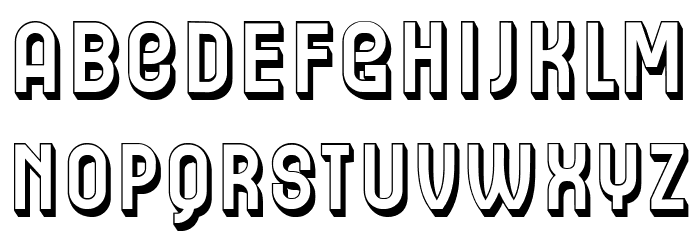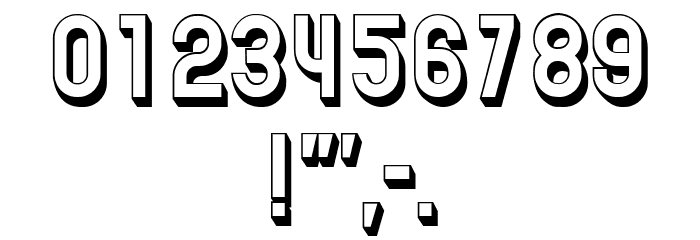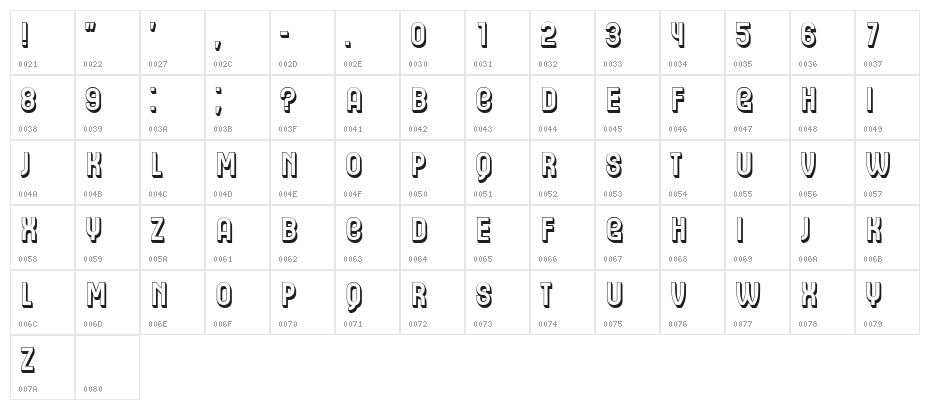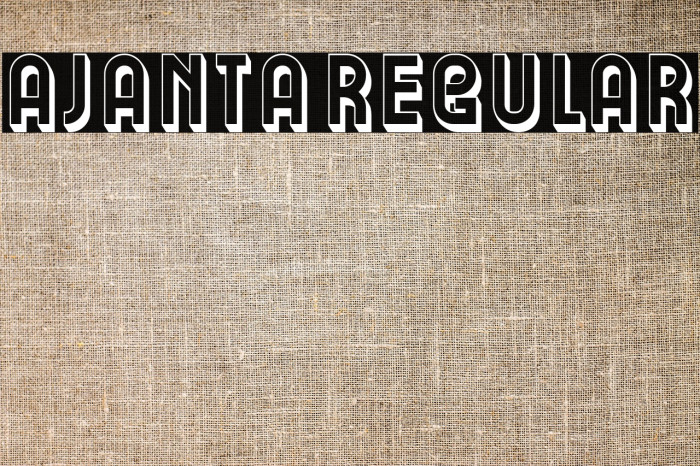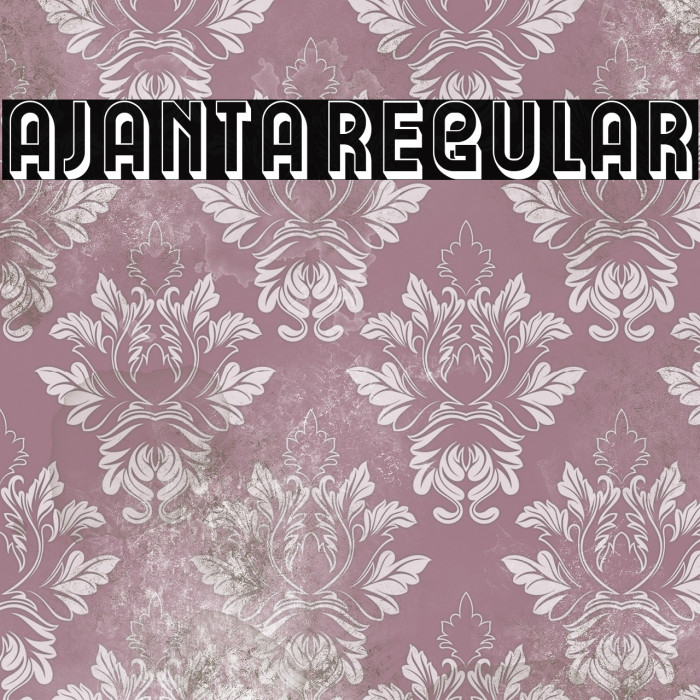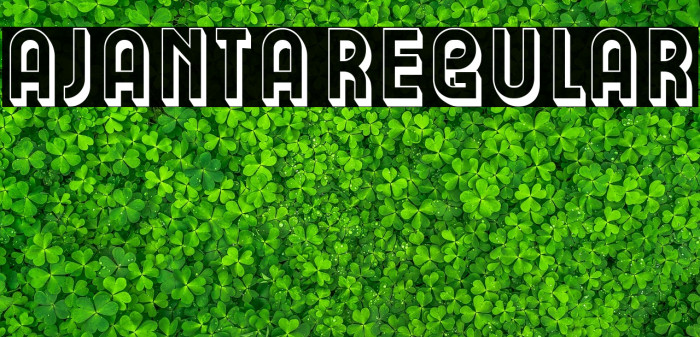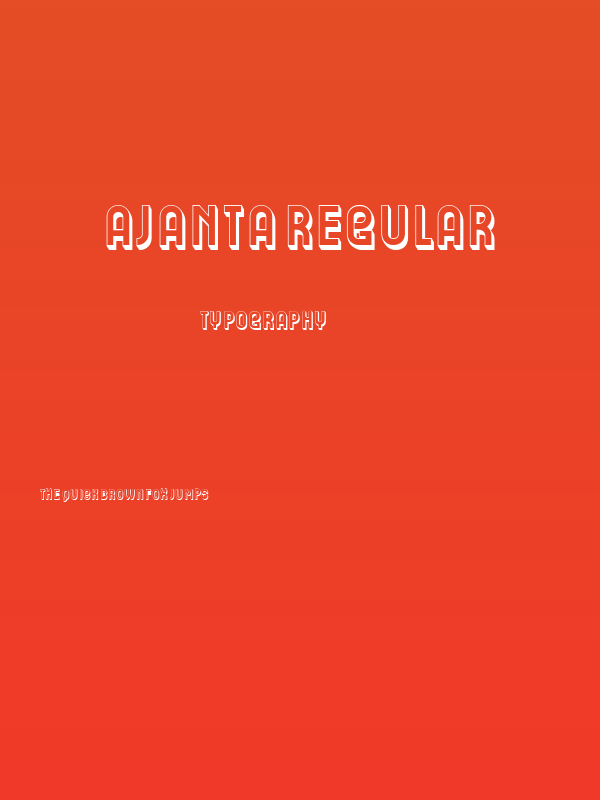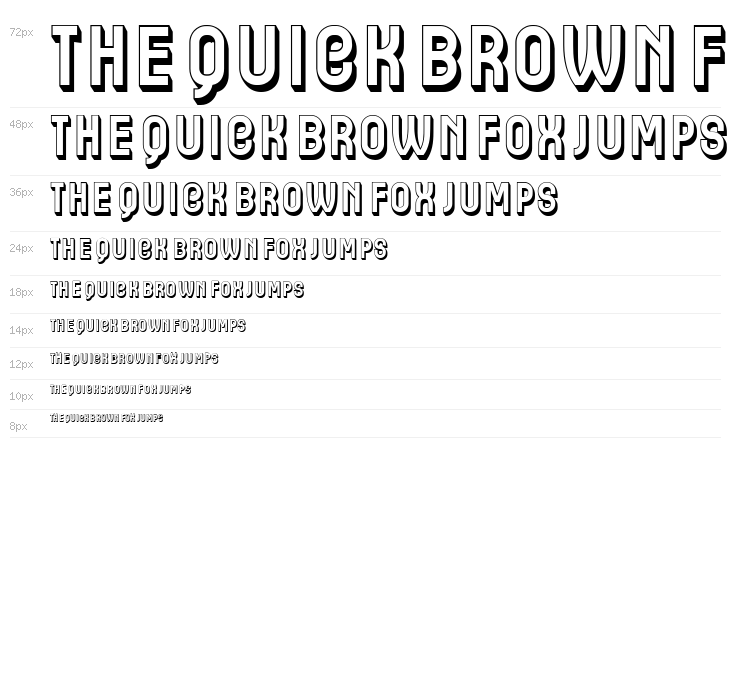
Ajanta Regular Font
This font features a bold, three-dimensional look with a strong, shadowed outline that gives it a striking and impactful appearance. The characters are uppercase and have a geometric structure, with consistent stroke widths that contribute to a clean and modern aesthetic. The shadow effect adds depth, making the letters appear as if they are lifted off the page. This style is eye-catching and suitable for designs that require a bold statement. The font maintains a uniform spacing between characters, ensuring readability while enhancing its decorative appeal.
A bold, 3D geometric font with shadowed outlines for a striking effect.
- Proposed Projects: Ideal for poster designs, headlines, logos, and any project needing a bold, impactful typeface.